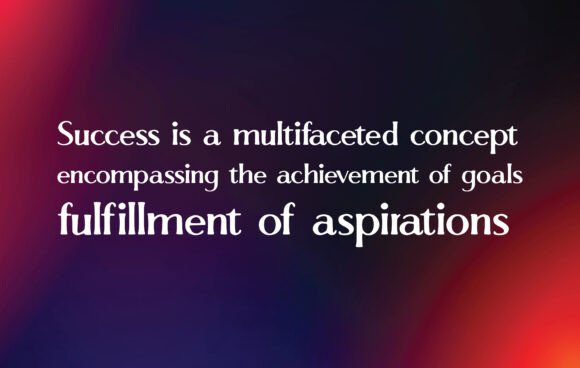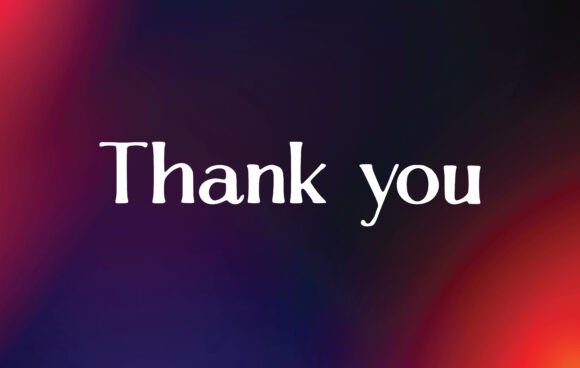
Discover the Elegance of Brantley Font: Elevate Your Designs to New Heights
Are you a designer or crafter looking for a font that can take your creative ideas to the next level? Look no further than the Brantley font. This lovely and beautiful font is designed to help you create stunning visual content that captures the attention of your audience. In this article, we’ll explore the features and benefits of the Brantley font, and why it’s the perfect choice for creating eye-catching logos, branding, and quotes.
The Brantley Font: A Beautiful and Versatile Typeface
The Brantley font is a beautifully crafted typeface that exudes elegance and sophistication. Its unique design elements make it stand out from other fonts, giving it a distinctive look that’s sure to grab attention. Whether you’re creating a logo, branding materials, or quotes, the Brantley font is the perfect choice. Its versatility allows it to be used in a variety of design projects, from print to digital media.
Why Choose the Brantley Font?
So, why should you choose the Brantley font for your design projects? Here are just a few reasons:
• Elegant Design: The Brantley font features an elegant design that’s perfect for creating sophisticated and professional-looking visual content.
• Versatility: This font is versatile and can be used in a variety of design projects, from logos and branding to quotes and digital media.
• Attention-Grabbing: The Brantley font is designed to grab attention, making it perfect for creating eye-catching visual content that stands out from the crowd.
• Easy to Read: Despite its elegant design, the Brantley font is easy to read, making it perfect for use in body text as well as headlines.
Using the Brantley Font for Logos and Branding
When it comes to creating logos and branding materials, the Brantley font is an excellent choice. Its elegant design and versatility make it perfect for creating professional-looking visual content that represents your brand. Here are a few ways you can use the Brantley font for logos and branding:
• Logos: Use the Brantley font to create a stunning logo that represents your brand. Its unique design elements make it perfect for creating a memorable and recognizable logo.
• Business Cards: Use the Brantley font on your business cards to create a professional-looking and elegant design that reflects your brand.
• Brochures and Flyers: Use the Brantley font in your brochures and flyers to create a cohesive and professional-looking design that represents your brand.
Creating Eye-Catching Quotes with the Brantley Font
The Brantley font is also perfect for creating eye-catching quotes that grab attention. Its elegant design and versatility make it ideal for use in social media graphics, posters, and other visual content. Here are a few ways you can use the Brantley font to create stunning quotes:
• Social Media Graphics: Use the Brantley font to create stunning social media graphics that feature inspirational quotes or messages.
• Posters: Use the Brantley font to create eye-catching posters that feature quotes or messages that inspire and motivate.
• Instagram Stories: Use the Brantley font to create engaging Instagram stories that feature quotes or messages that resonate with your audience.
In conclusion, the Brantley font is a beautiful and versatile typeface that’s perfect for designers and crafters looking to elevate their designs to new heights. Its elegant design, versatility, and attention-grabbing features make it an excellent choice for creating eye-catching logos, branding, and quotes. Whether you’re a professional designer or a crafter, the Brantley font is a must-have in your font collection.